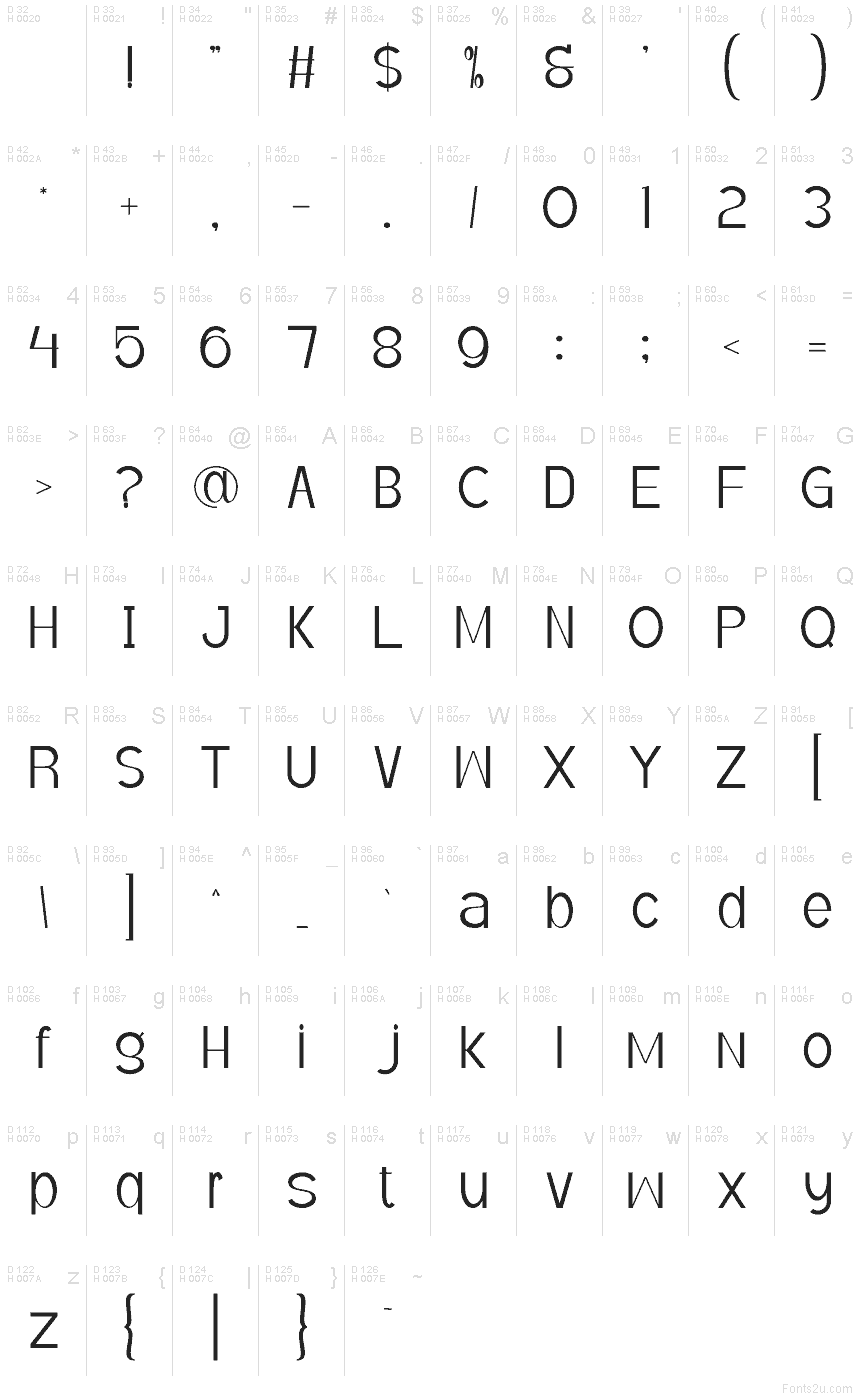
Gaseno Light
Gaseno Light font by Gilang Ternadho is a free modern sans serif typeface with a striking, ribbon-thin silhouette. Its letters stretch with generous width and airy spacing, while the smooth, almost calligraphic curves of the “a,” “s,” and “e” contrast against the crisp, straight strokes. The overall effect is sleek and luminous, like ink drawn with a fine-liner on glossy paper—minimal, but with just enough personality to feel bespoke rather than generic.
Using Gaseno Light in the Gaseno family, you get a sophisticated voice that shines on fashion branding, editorial covers, lookbooks, beauty packaging, logos, and minimalist posters. This free font works beautifully at larger sizes where its slim lines can breathe, and it pairs well with a simple, neutral sans serif for body copy to keep layouts clean and readable.